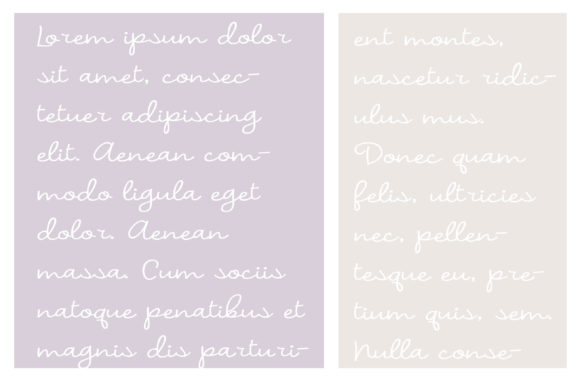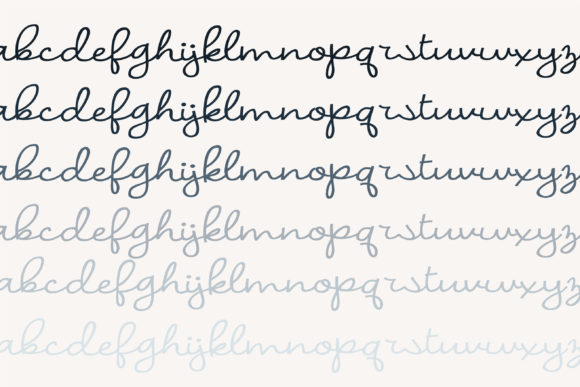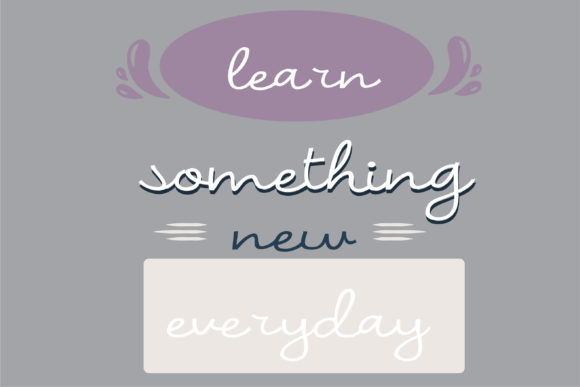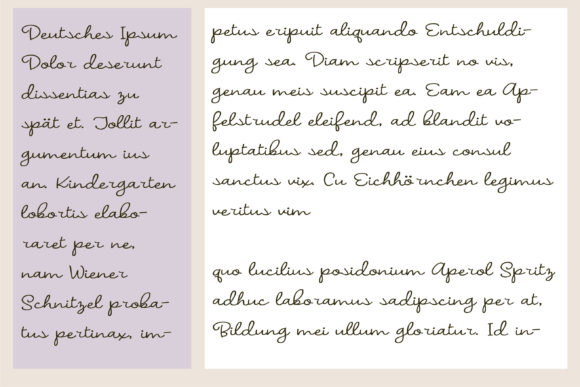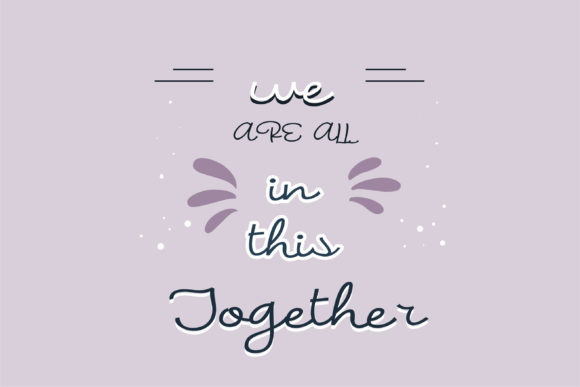
About ZP Supermind Font
This hand-crafted script is a traditional cursive. It is perfect for creations that need original typography.
Stenciled and bold versions included.